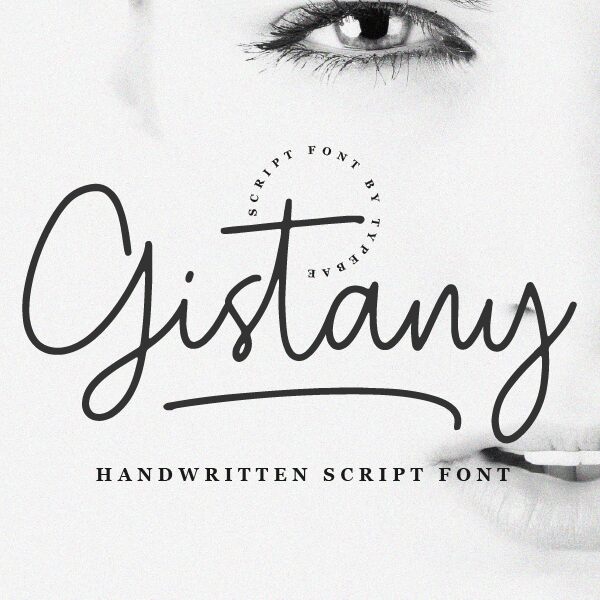
Gistany
Gistany font from Typebae Foundry is a free handwritten font featuring a light weight. Presenting a perfect combination of casual elegance and modern aesthetic, this signature-style lettering typeface creates an approachable feel with its unique, expressive character suitable for stand-alone titles or longer texts.